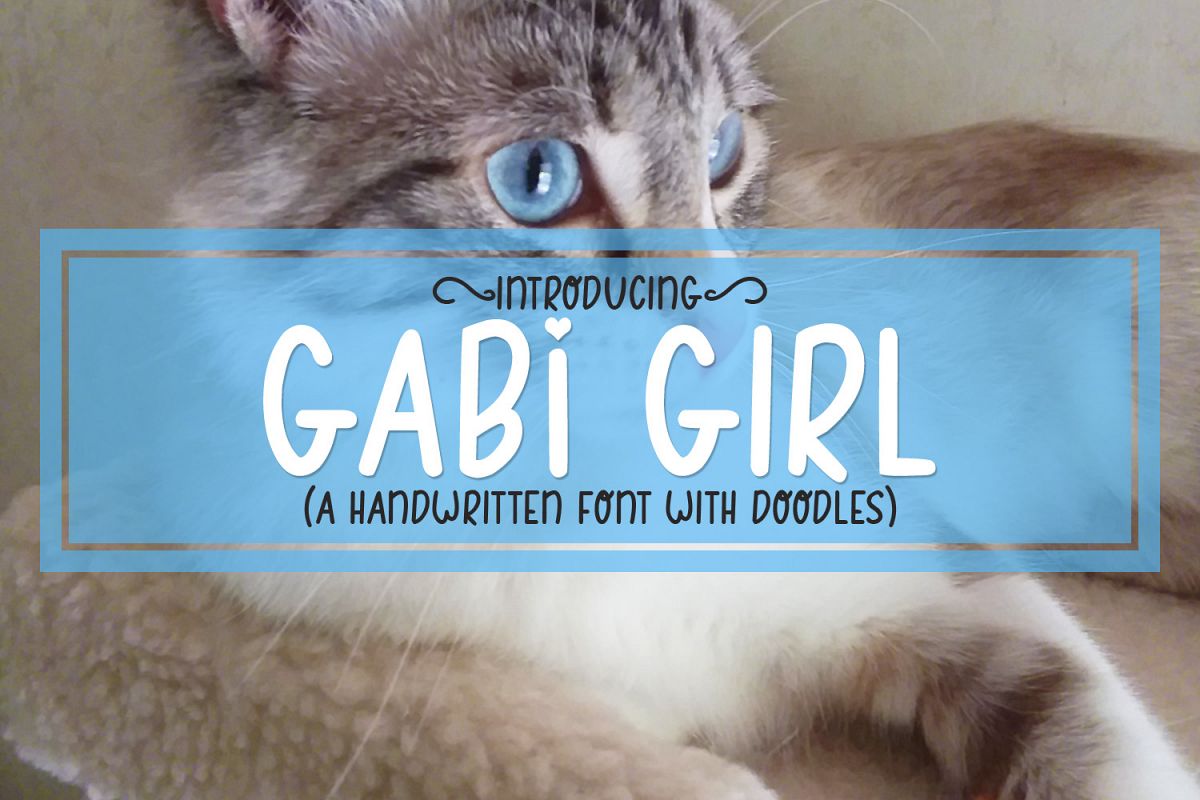
Gabi Girl - A Handwritten Font w/ Doodles by Digi Web Studio
Gabi Girl is my new rescue kitten and this font is just like her, playful and a little quirky. I carefully cleaned up each letter / character to make this font smooth, while still retaining the handwritten feel so it should work well with your Silhouette, Cricut, other cutting machines and many types of craft projects!
You'll Receive: OTF (Open Type) and TTF (True Type) formats with uppercase, lowercase, numbers and punctuation (as shown in the preview). I've also included a couple alternates for the letter i (a heart is in place of the dot for both UC and LC) and doodles / dingbats with a cat / pet theme along with some flourishes and hearts. This font is PUA encoded so you can access all the characters via the character map (or other app) if your software doesn't support the Open Type features of this font.